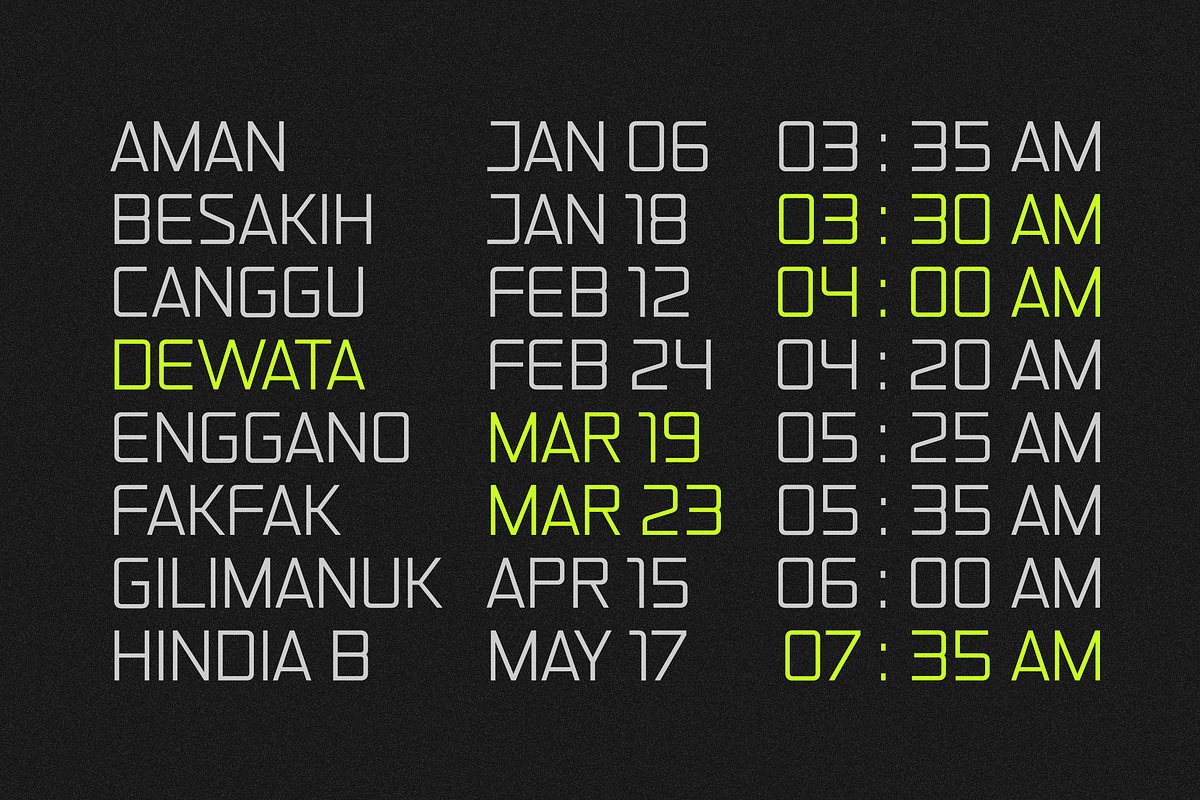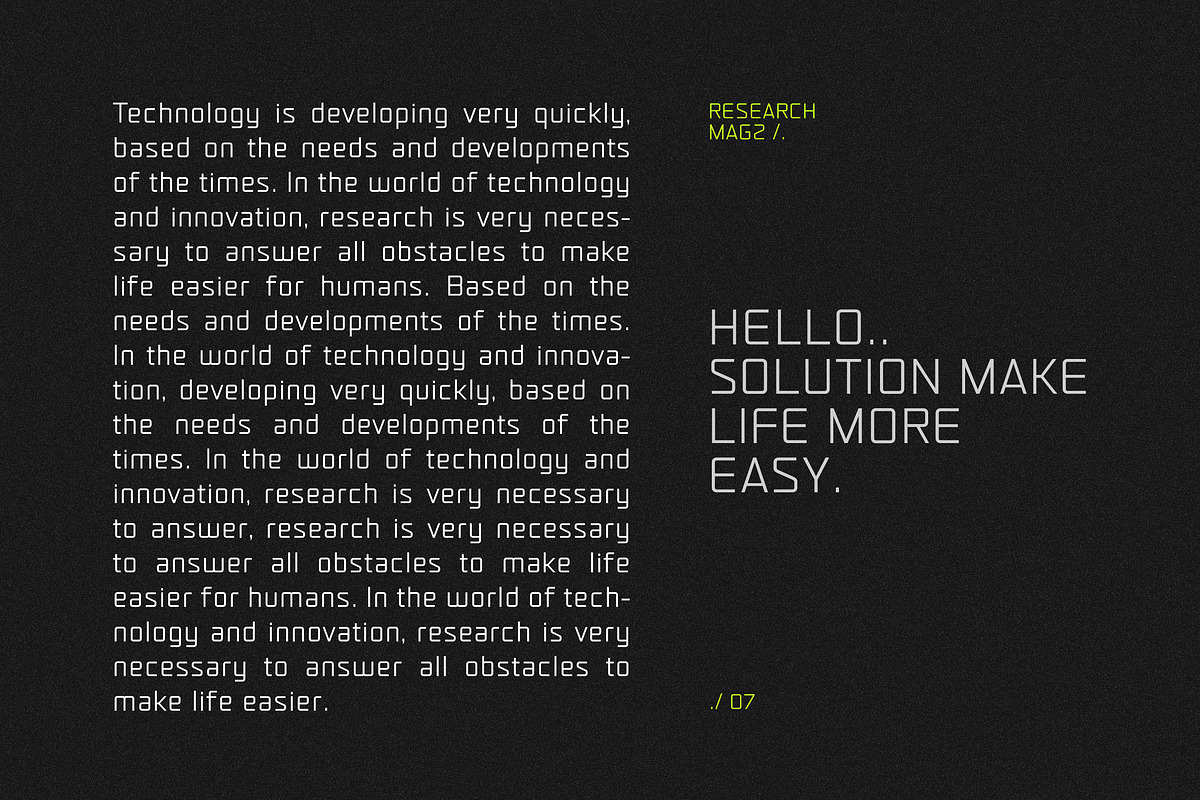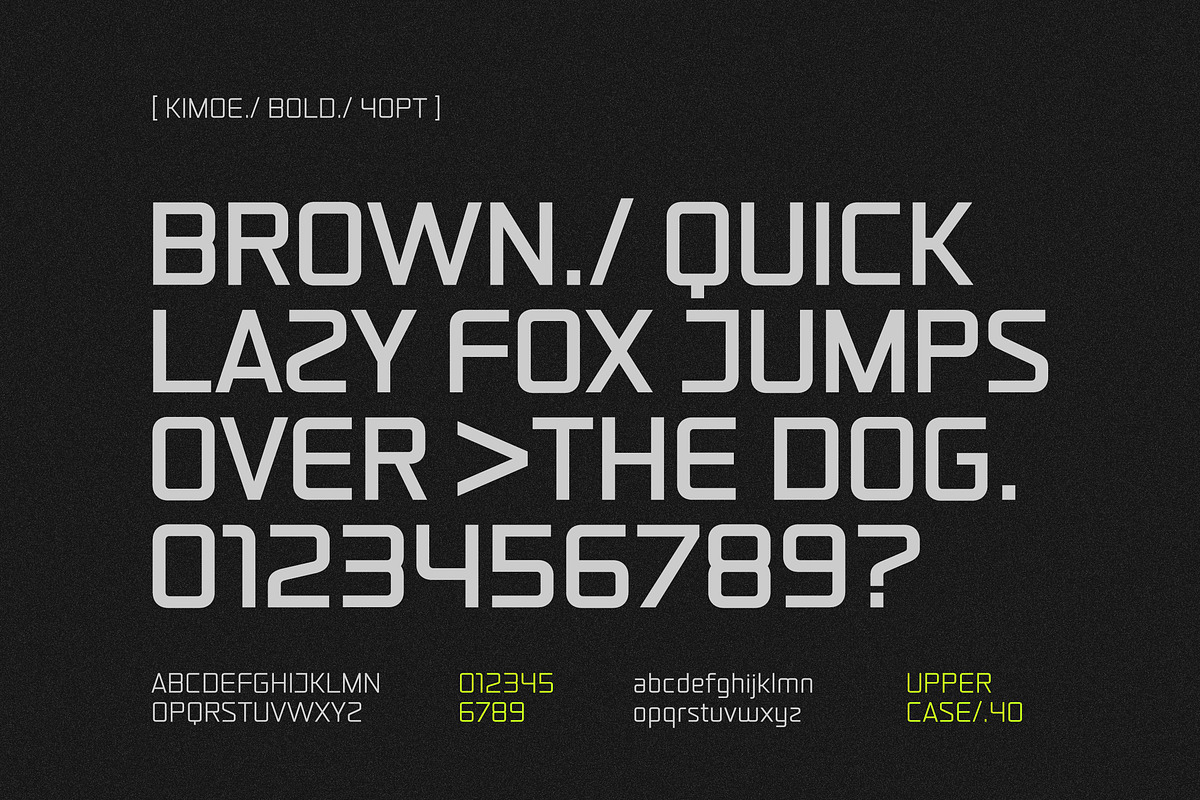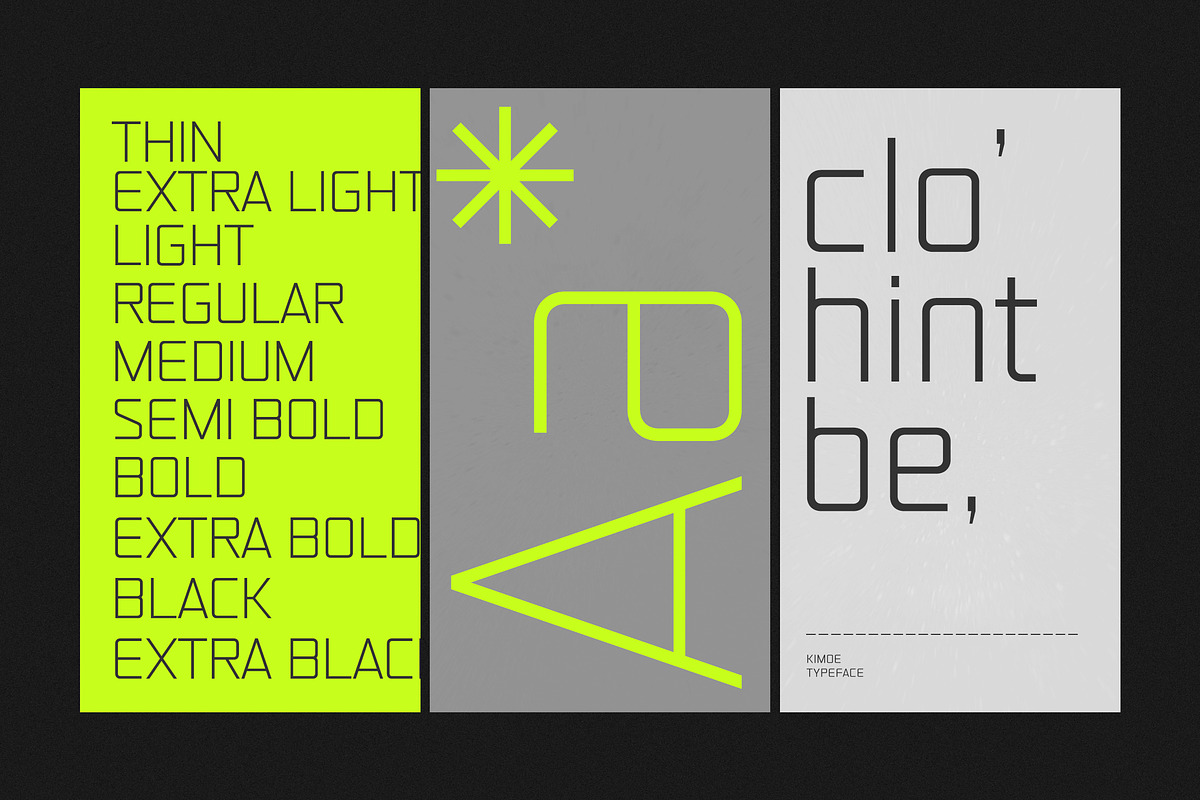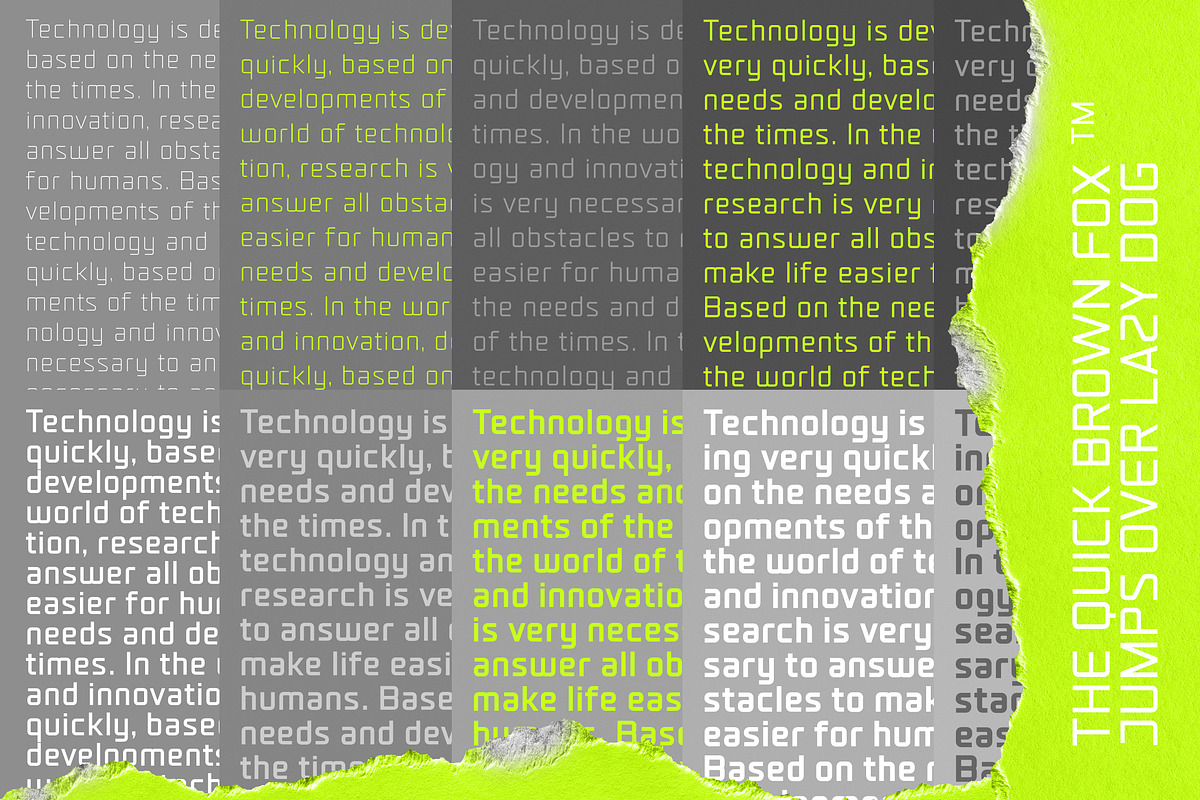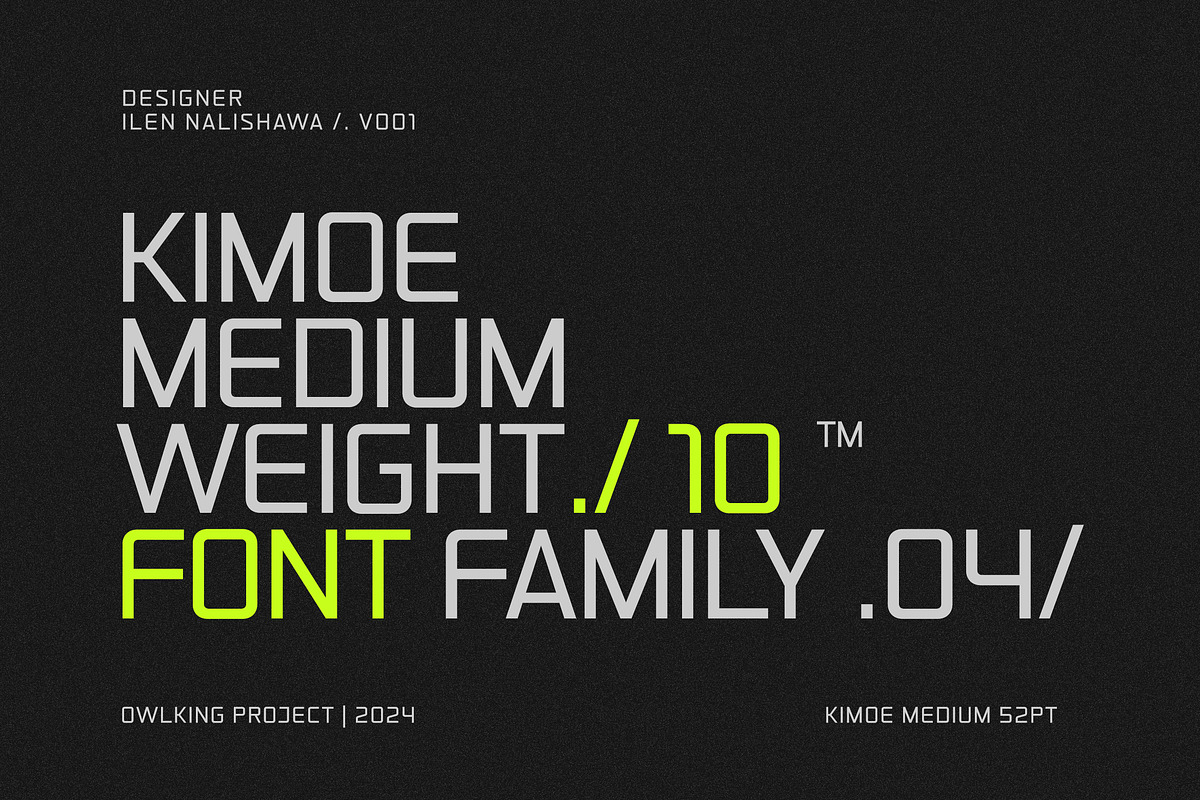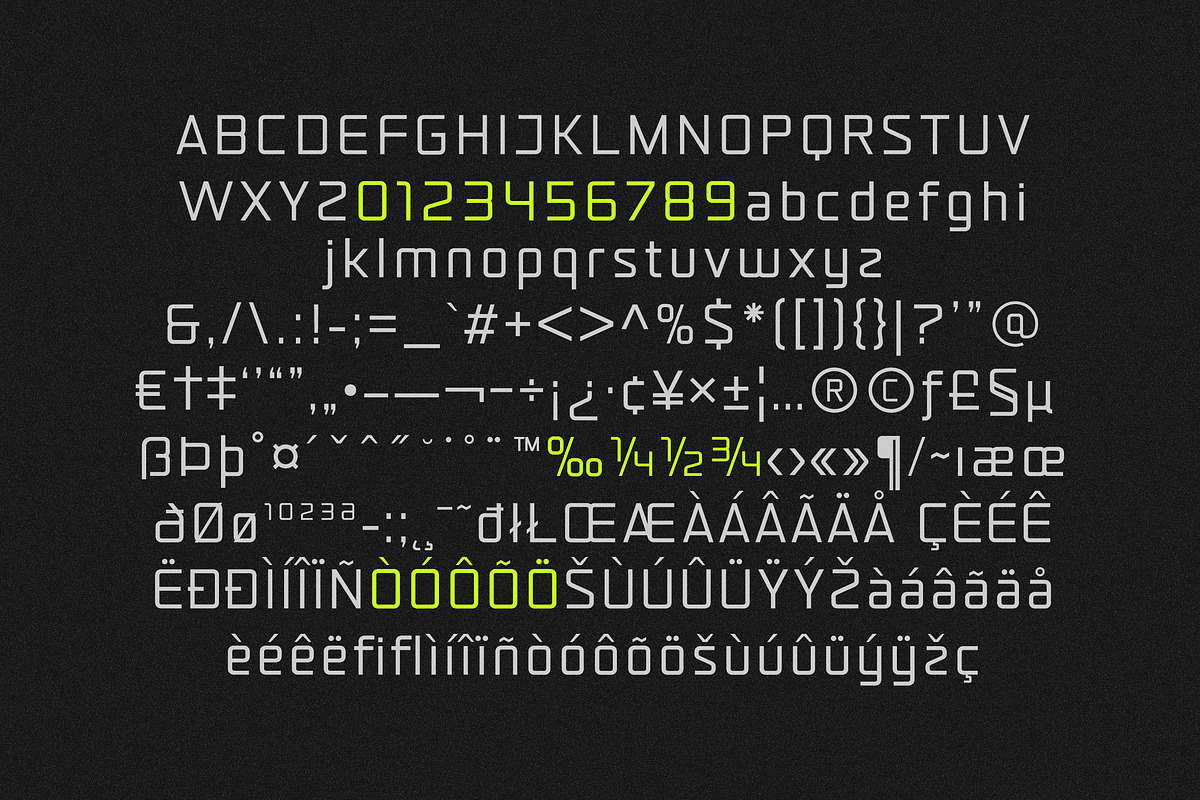
Kimoe
Kimoe is a modern font with a future style, these fonts give a sophisticated impression, with 10+ weights, from thin to Extra black, very supportive for extensive exploration and providing various adjustments in design, working very well for displays and short sentences.
KIMOE UPPERCASE & LOWERCASE